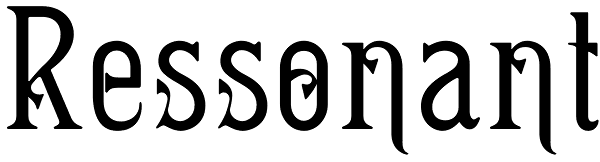
Ressonant
Hi Paul, The info about Renaissant has been "promoted" to a forum topic with a link to your font. Let me know when you're ready for another revival! Cheers, Anna According to the Type Heritage Project, this font (designer unknown) was cut by Henry...